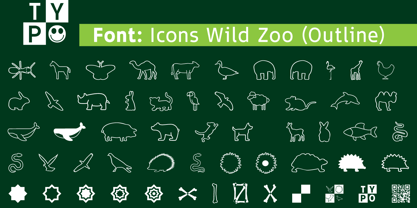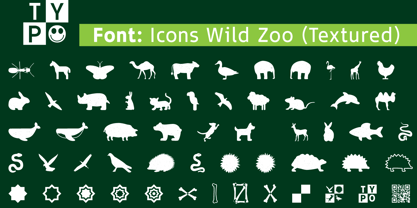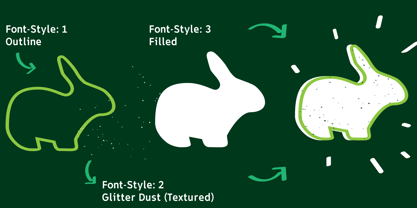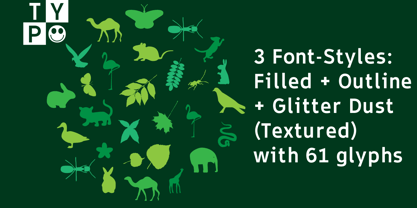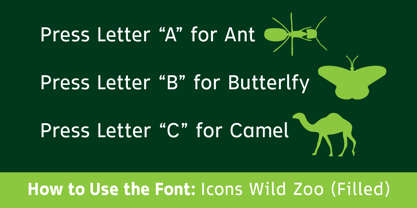
Icons Wild Zoo
by TypoGraphicDesign
The Icons Wild Zoo Font Family was designed by Manuel Viergutz and published by TypoGraphicDesign. Icons Wild Zoo contains 3 styles and family package options. More about this family
The typeface Icons Wild Zoo is designed from 2024–2025 (font-release 2025) for the font foundry Typo Graphic Design by the type designer Manuel Viergutz. The icon font with 61 glyphs and 3 font-styles (Filled + Outline + Textures (Glitter Dust))
A like ant (Capital Letter A on the computer keyboard), B like butterfly (Capital Letter B on the computer keyboard), C like camel (Capital Letter C on the computer keyboard), cow, D like duck (Capital Letter D on the computer keyboard), E like elephant (Capital Letter E on the computer keyboard), F like flamingo (Capital Letter F on the computer keyboard), G like giraffe (Capital Letter G on the computer keyboard), chicken, rabbit, bird, rhinoceros, cat, parrot, sheep, mouse, dolphin, whale, pig, bear, dog, deer, fish, snake, horse, hedgehog, turtle…
For use in logos, packaging for drinks & food, magazines, posters, advertisement plus as webfont for decorative headlines. The font works best for display size.
Font Name: Icons Wild Zoo
Font Styles: 3 font-styles (Filled + Outline + Textures (Glitter Dust))
Font Cate­gory: Icon Font for head­line size
Glyph Set: 61 glyphs (incl. decorative extras)
■ Type Desi­gner: Manuel Viergutz
Designers: Manuel Viergutz
Foundry: TypoGraphicDesign